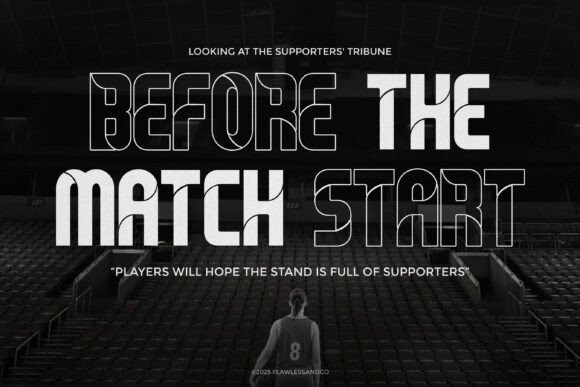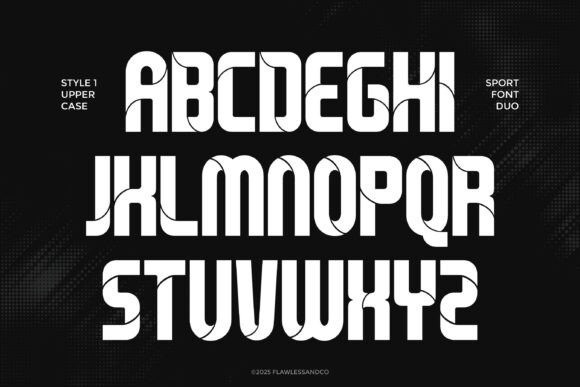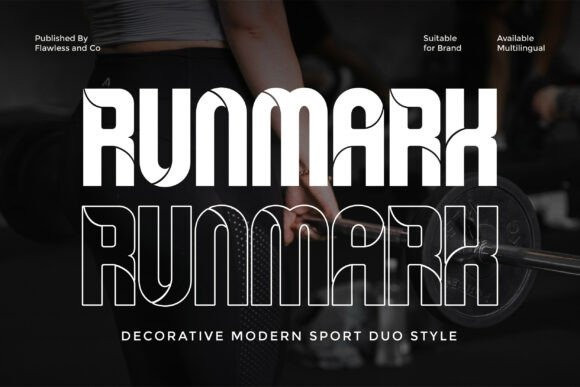
Runmark Font
Runmark Font is a decorative modern sport font designed to bring power, personality, and bold visual impact to every project. Its unique letter styling blends athletic energy with artistic curves, making it stand out among ordinary sport typefaces. Runmark is built for designers who want more than just speed and strength, it delivers a stylish sport identity that feels competitive, dynamic, and unmistakably modern.